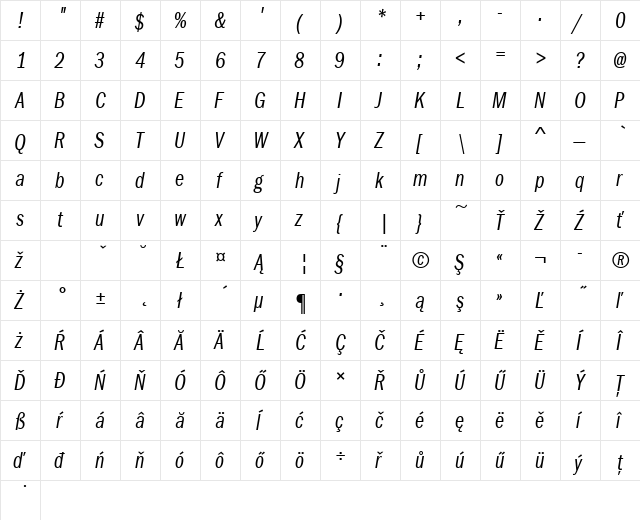
FranklinGotItcTEEBooCom Italic
Design Context for FranklinGotItcTEEBooCom Typeface
FranklinGotItcTEEBooCom is a composed and adaptable typeface that performs quietly and consistently across a wide range of design contexts. The slanted form adds forward momentum and visual energy.
Pro Tip: Try FranklinGotItcTEEBooCom for annotation and caption copy alongside an upright companion — the contrast in angle creates a dynamic but ordered typographic system.